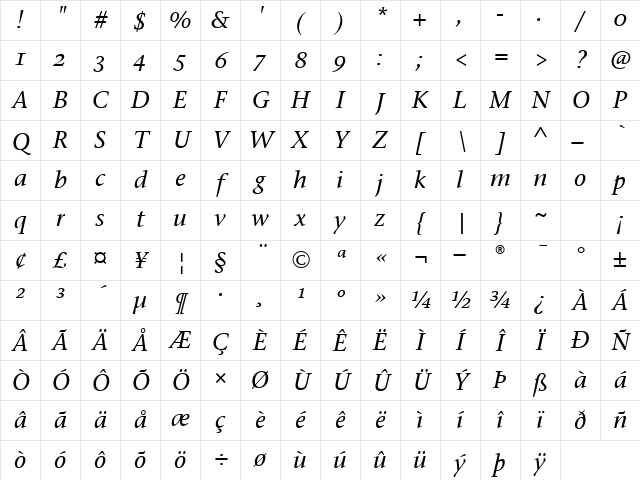
Stone Serif OS ITC TT MediumIta
Style: MediumIta
Complete Stone Serif OS ITC TT MediumIta glyph index. Displaying only characters natively supported by Stone Serif OS ITC TT MediumIta font.
Design Context for Stone Serif OS ITC TT
Stone Serif OS ITC TT carries the refined structure of traditional serif typography, with bracketed terminals and considered proportions that communicate credibility and craft.